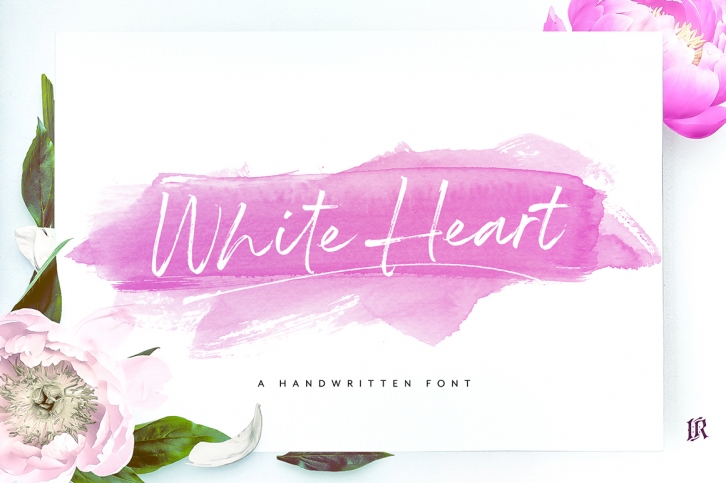
White Heart is a trendy and unique font with an authentic style. It was designed by Ivan Rosenberg and it's a great choice for creative people who need such a font. It was released on April 29, 2019 and the file size is 7.12 MB. White Heart will add an organic vibe to any design idea!